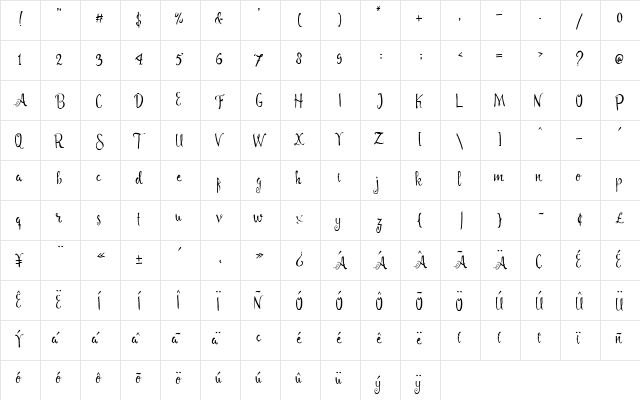
Angelia Script Free Demo Regular Font Preview
Angelia Script Free Demo Regular
Angelia Script Free Demo Regular Font Details
| Foundry | Queentype |
| Designer | Queentype |
Design Context for Angelia Script Free Demo Typeface
Angelia Script Free Demo flows with the natural rhythm of handwritten lettering, making it ideal for designs that call for warmth and personal expression.
Font Pairing: Combine Angelia Script Free Demo with a simple geometric sans for maximum contrast — the tension between flowing curves and clean structure is a classic typographic pairing.
Pro Tip: Pair Angelia Script Free Demo with a clean sans-serif for supporting text. The contrast between fluid script and geometric structure creates an elegant typographic hierarchy.